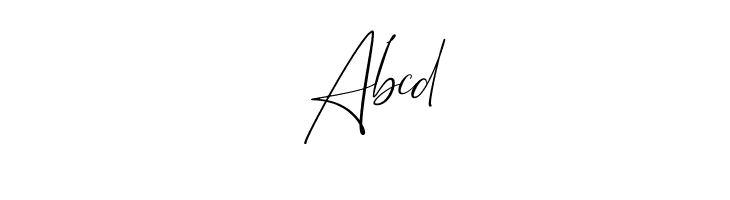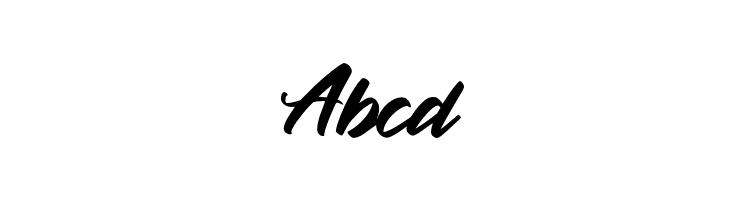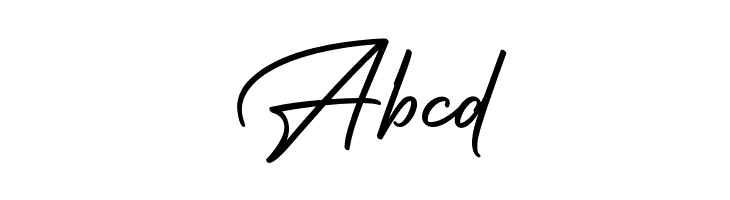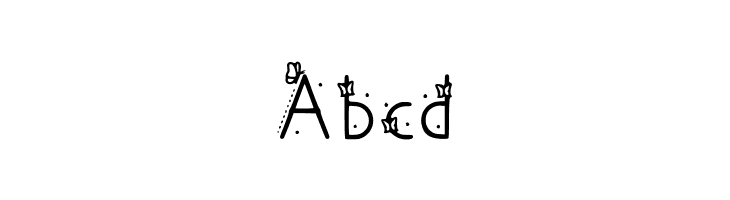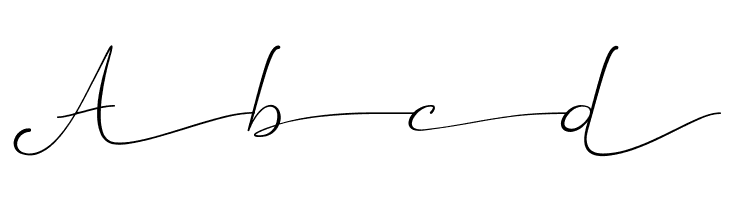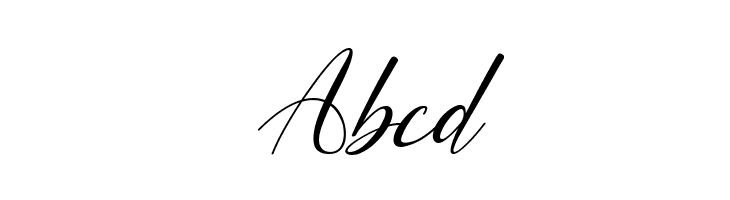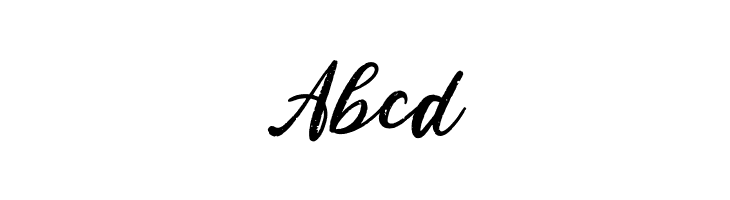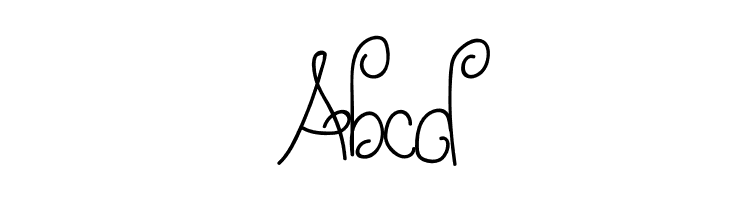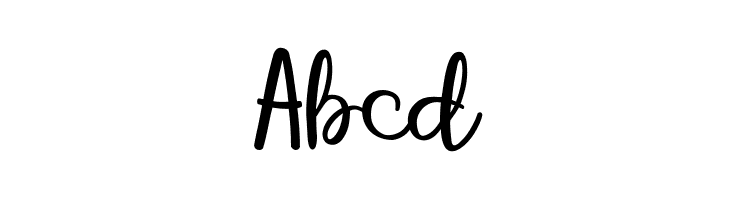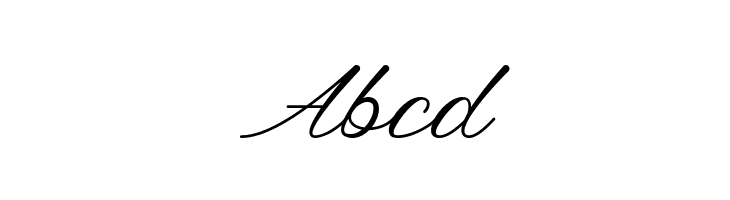
• Better Zone
A dynamic and flowing script font with elegant, cursive letterforms and medium contrast.
• Better_Regards
A graceful script font with flowing, cursive letters and elegant style.
• Better-Yesterday-italic
A flowing, cursive script font with elegant, connected characters.
• Betterday
A bold, decorative script font with elegant curves and high contrast.
• Betterday Script [Demo]
An elegant and flowing script font with intricate loops and high contrast.
• Betterdo
A dynamic, cursive handwritten font with varied stroke thickness.
• Betterflies 20 Regular
A whimsical font with butterfly motifs integrated into each character.
• betterfly
A playful, whimsical font blending script and sans-serif styles with decorative elements.
• betterfly christmas
A playful, whimsical font with script and sans-serif elements, perfect for festive designs.
• betterfly christmas
A playful, handwritten-style font perfect for festive themes.
• BetterHeatherRegular
An elegant cursive script font with smooth, flowing strokes and a handwritten appearance.
• Bettering
A whimsical and playful font with curly, flowing letterforms and decorative elements.
• Betterlett-Regular
A dynamic and elegant script font with fluid strokes and a handwritten charm.
• betterlife
An elegant script font with flowing, cursive style and intricate flourishes.
• Betterlove
A playful and energetic script font with bold, flowing letterforms.
• Betterlove
An elegant, flowing script font with graceful curves and sophisticated style.
• Betterlove Italic
A sophisticated, cursive script font with elegant, flowing strokes.
• Betterly
A bold, cursive script font with a textured, handcrafted feel.
• Betterside
A playful, elegant script font with a handwritten feel and medium contrast.
• Betterway
• Betty Angela Personal Use
A graceful, cursive font with elegant, flowing strokes.